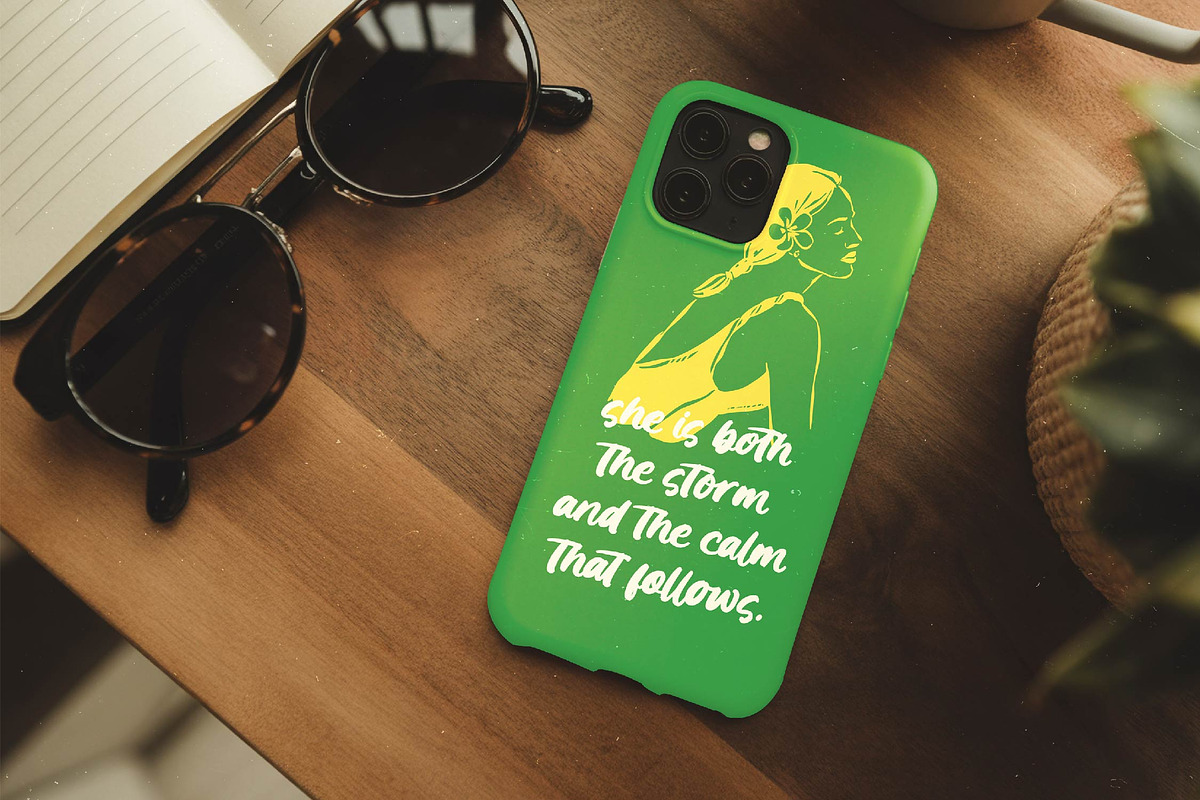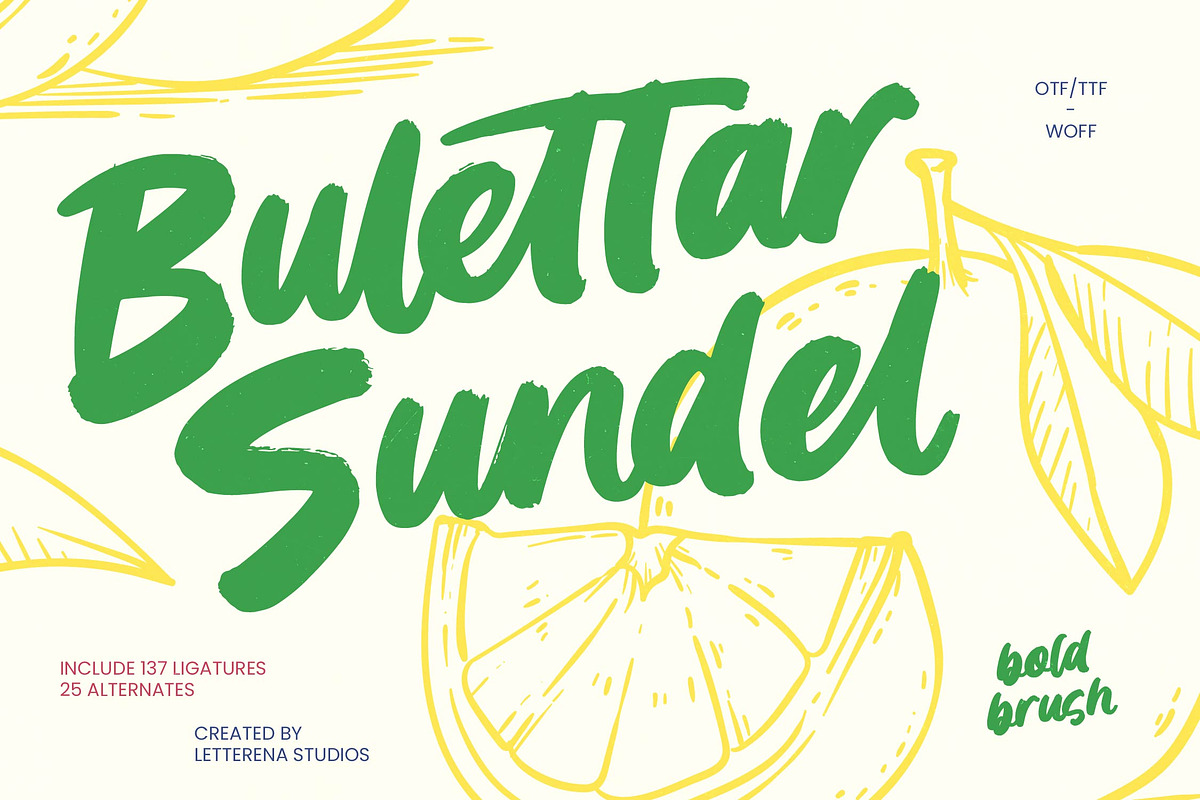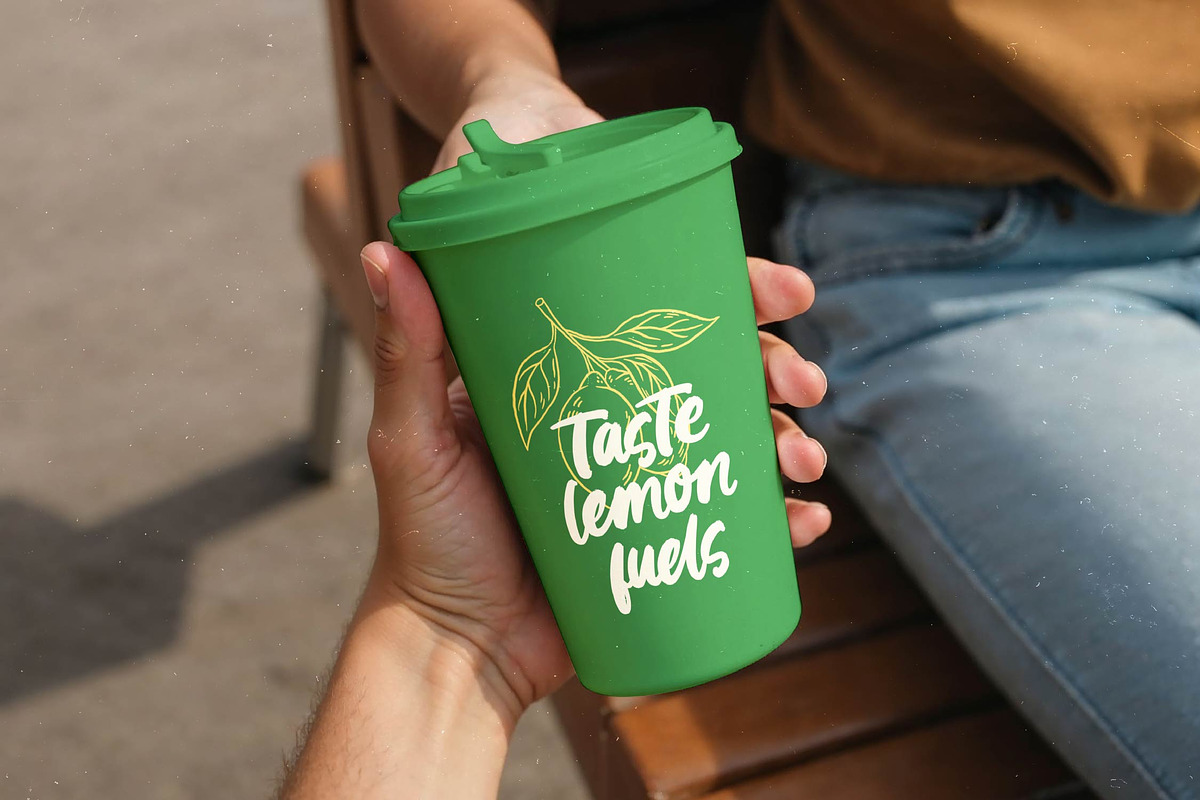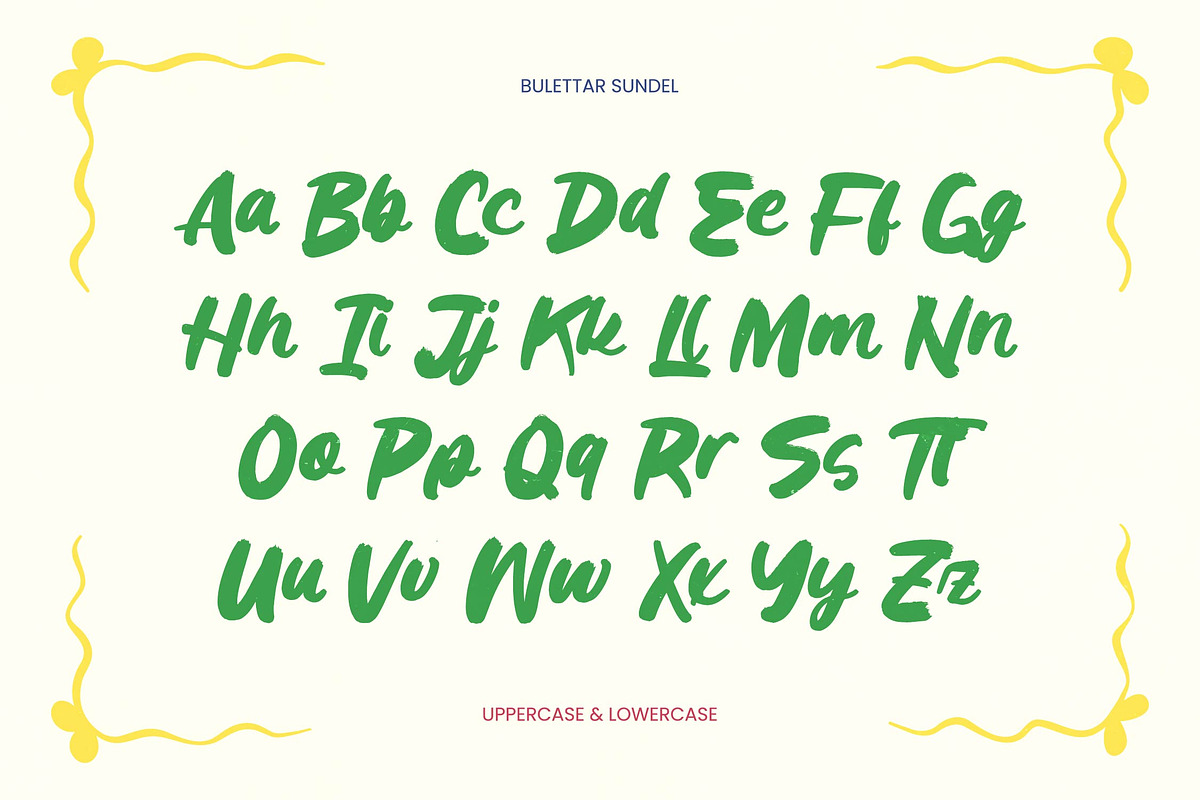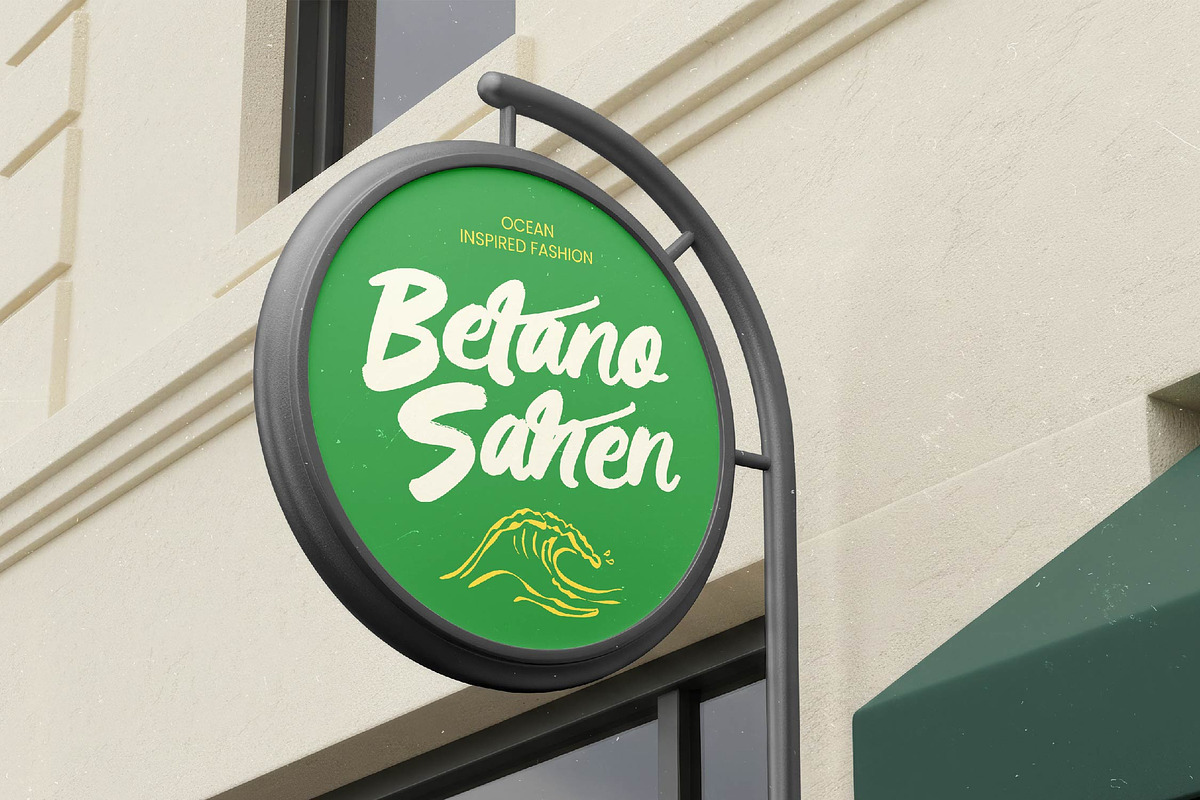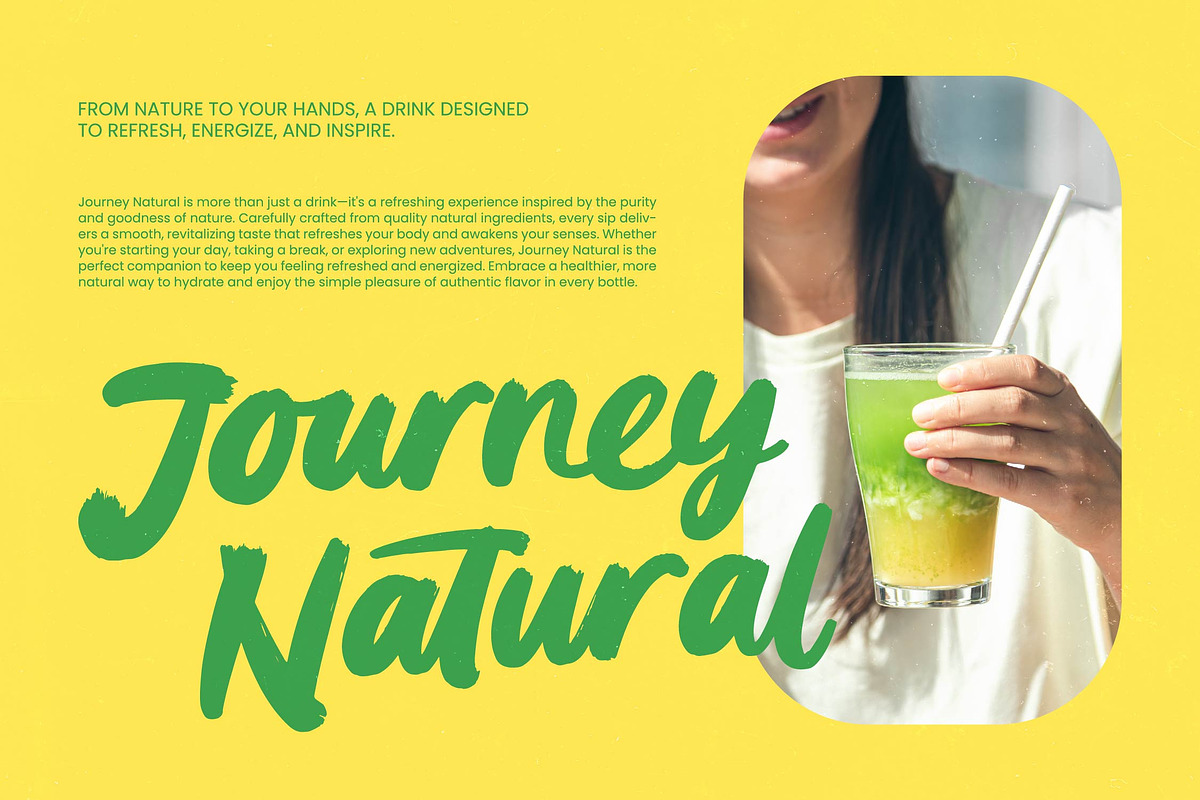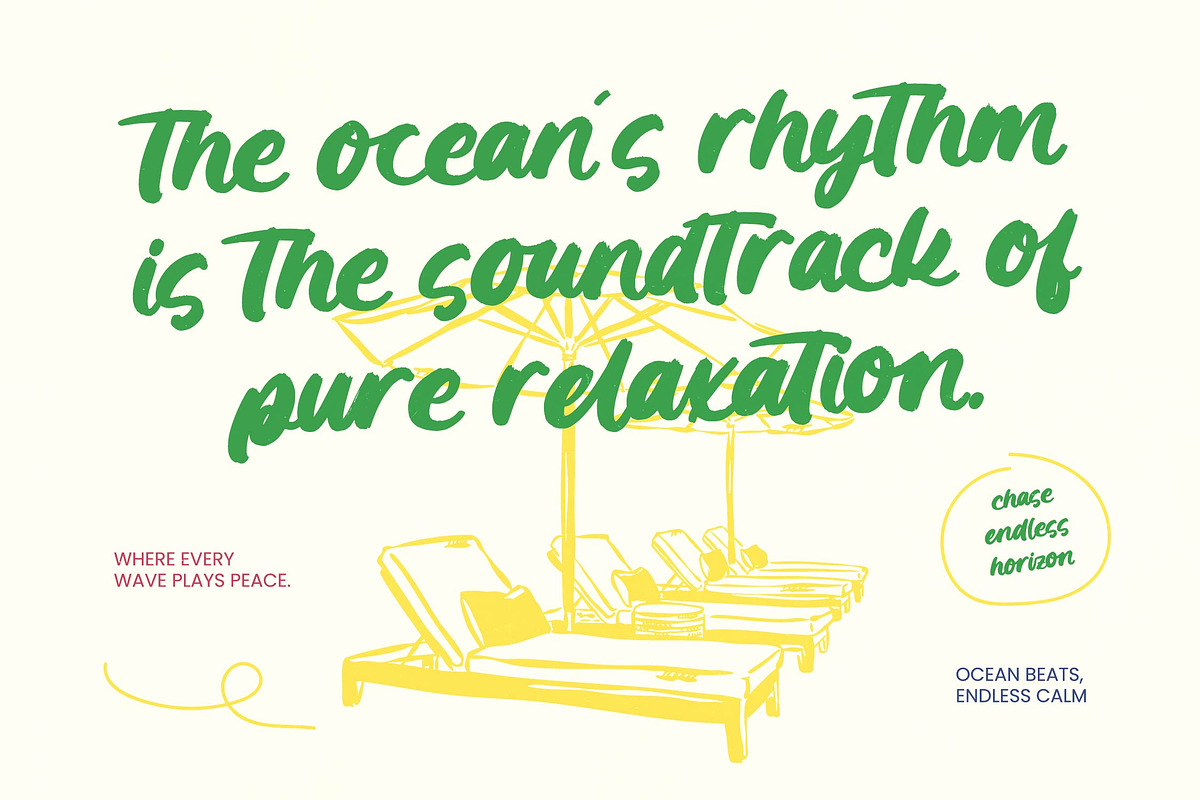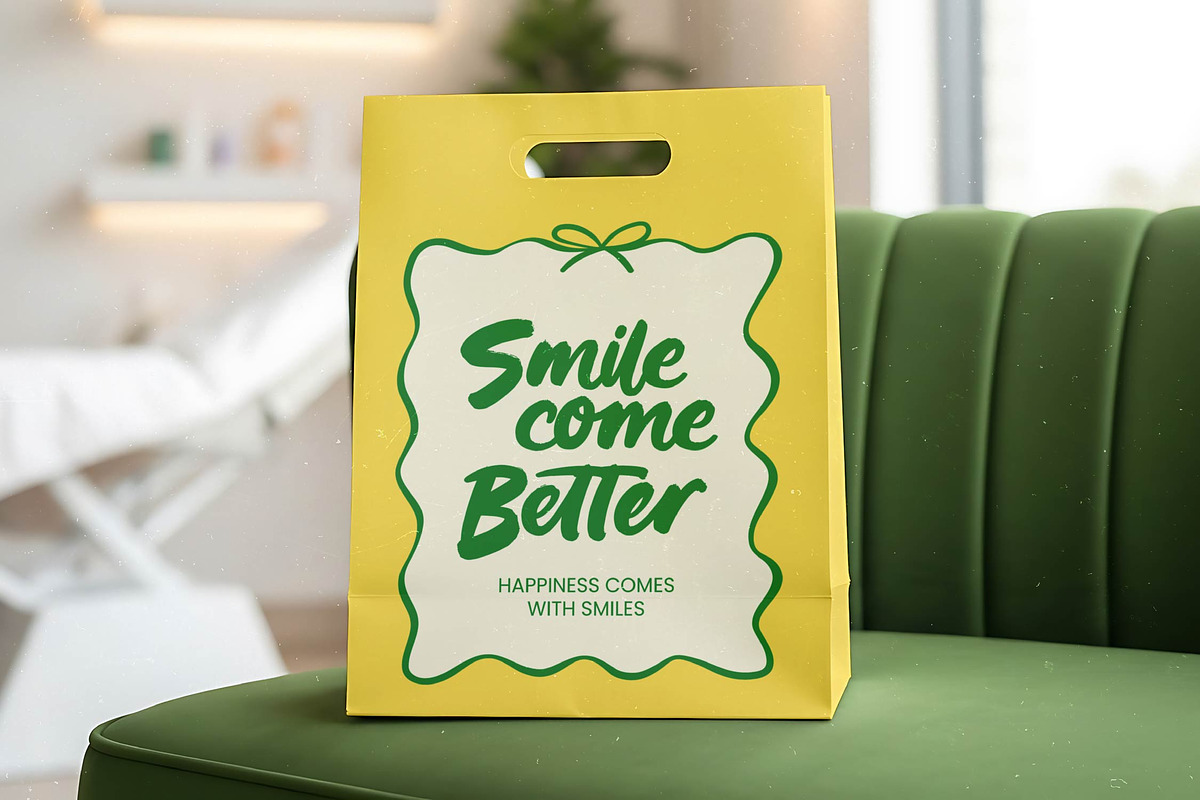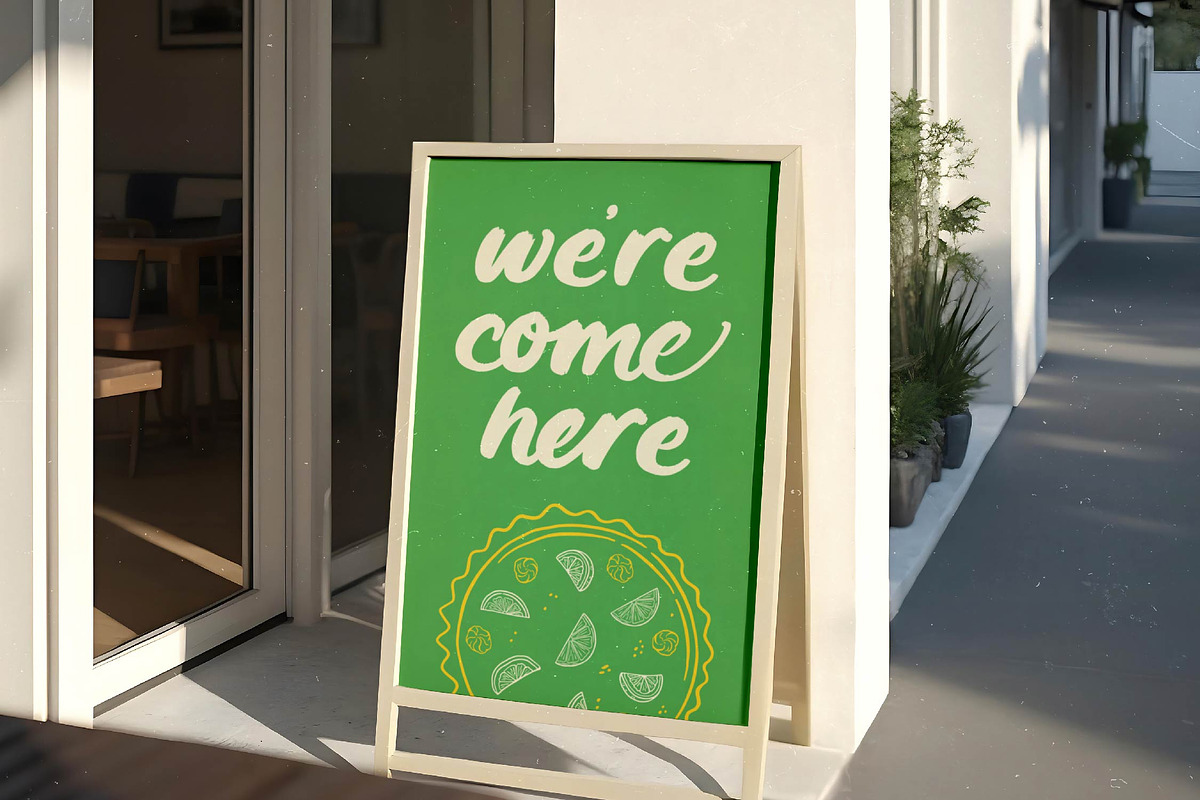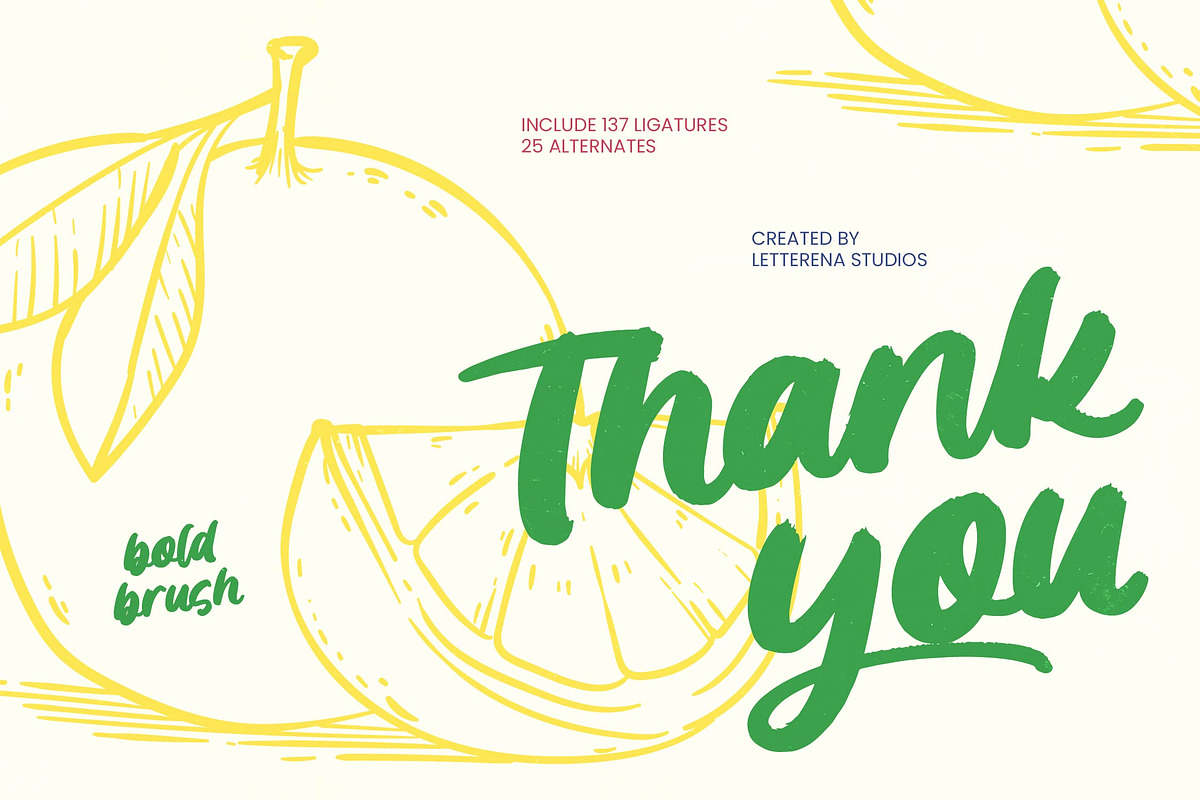
Bulettar Sundel Bold Brush
Bulettar Sundel - Bold Brush , Unleash the raw energy of your designs with Bulettar Sundel - Bold Brush, a powerful typographic masterpiece that blends authentic hand-drawn texture with a modern aesthetic. This bold brush script captures a sense of spontaneous creativity, offering organic strokes that provide an immediate visual impact for any creative endeavor. Designed by Letterena Studios, it features a robust set of 137 ligatures and 25 alternates, ensuring your compositions feel unique, handcrafted, and entirely professional.
Global accessibility is at the heart of this typeface's technical engineering. With its extensive multilingual support, Bulettar Sundel - Bold Brush adapts seamlessly across global markets, making it incredibly versatile for international projects. Whether you are targeting a local boutique or a worldwide audience, the consistent letterforms and expert kerning ensure your message remains legible and striking in various languages, elevating your brand’s presence on a global scale.
Transform your marketing materials into works of art with a font designed for high-stakes presentation. This typeface is an exceptional choice for luxury branding, dynamic packaging, and high-end editorial design. It is perfect for social media graphics, poster typography, and merchandise design where a bold, human touch is required to stand out from the competition. From artisanal food labels to lifestyle magazines, Bulettar Sundel - Bold Brush provides the creative flexibility needed to craft a truly cohesive brand identity.
Elevate your creative portfolio today by choosing a font that balances artistic expression with technical precision. Experience the perfect synergy of artistic flair and commercial functionality with this high-performance typeface. By integrating Bulettar Sundel - Bold Brush into your design toolkit, you gain access to a premium design asset that balances raw power with refined elegance. Secure your competitive edge and captivate your target audience with the bold character and unmatched personality of this standout brush typeface.